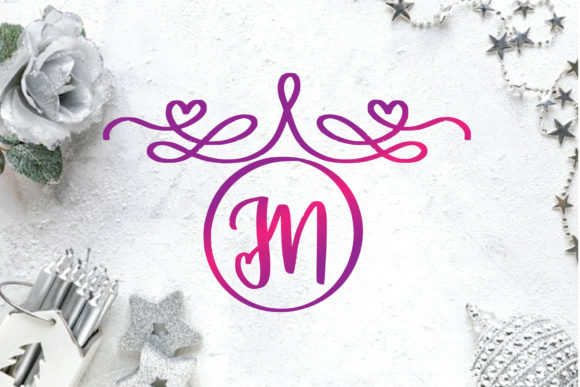
Introducing Monogram Decorative Font: The Heartfelt Touch for Unforgettable Creations
Immerse yourself in the enchanting world of Monogram Decorative Font, a masterpiece crafted to ignite your creativity and touch hearts. This exquisite decorative font, adorned with a charming heart ornament, exudes elegance and authenticity.
With Monogram Decorative Font, handwritten Qs take on a captivating allure, adding a whimsical touch to every letter you pen. Its flowing curves and graceful strokes evoke a sense of nostalgia, transporting you to a bygone era of heartfelt communication.
Elevate your wedding invitations to new heights of romance, where each word dances across the page like a heartfelt sonnet. Create breathtaking stationary art that whispers of cherished memories and heartfelt sentiments. Enchant your social media posts with eye-catching visuals that draw attention to your heartfelt messages. Compose cute greeting cards that convey warmth and affection, leaving a lasting impression on those you care about.
Whether you're an artist, a designer, or simply someone who cherishes the art of handwritten communication, Monogram Decorative Font is your perfect companion. Its versatility knows no bounds, extending to a myriad of creative projects where a touch of heartfelt elegance is desired.
Let your creativity bloom with Monogram Decorative Font, the key to unlocking heartfelt connections and leaving an unforgettable mark on the world. Download now and embark on a journey of artistic expression that will touch souls and create memories that last a lifetime.